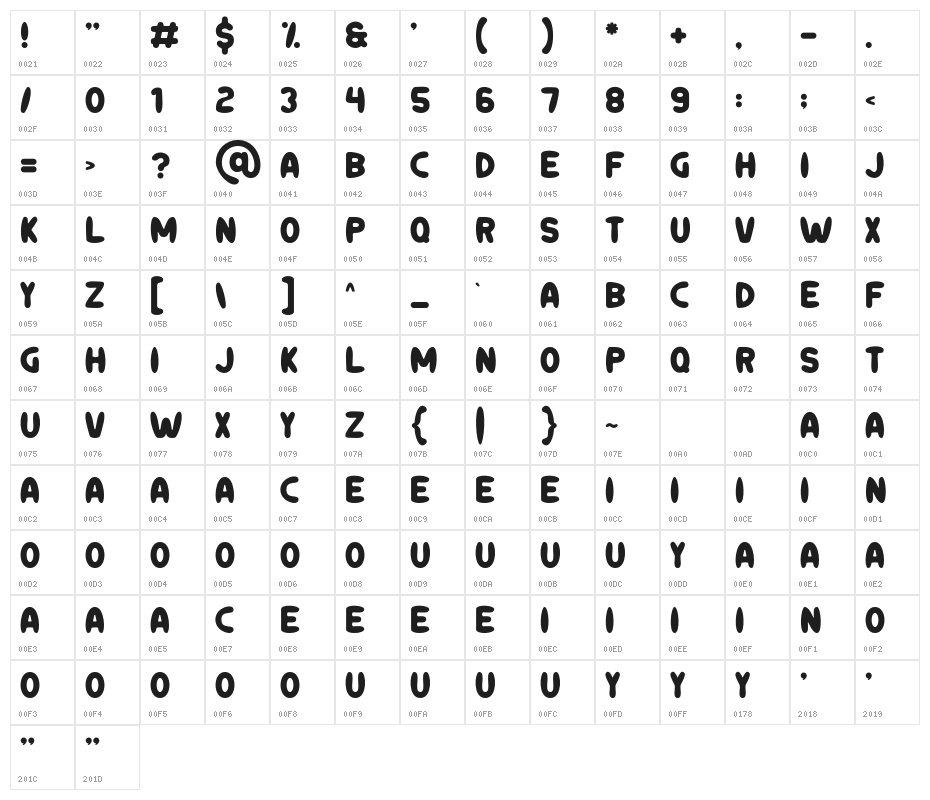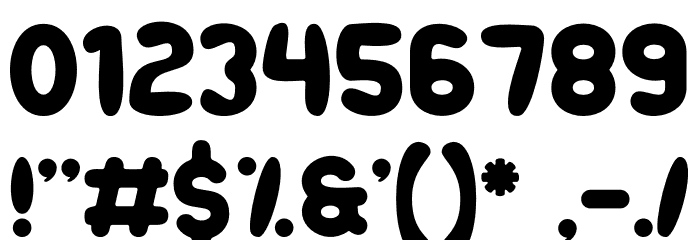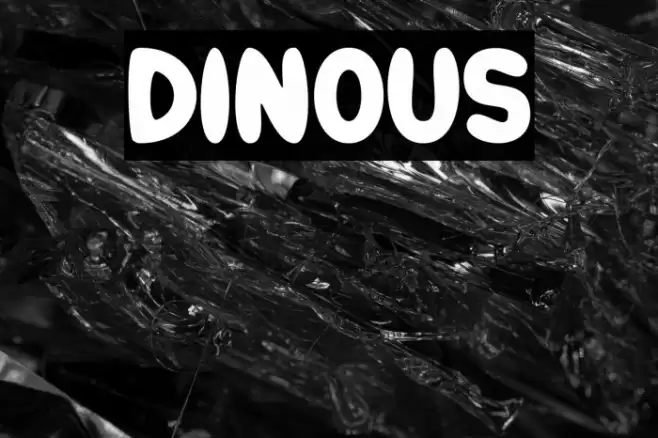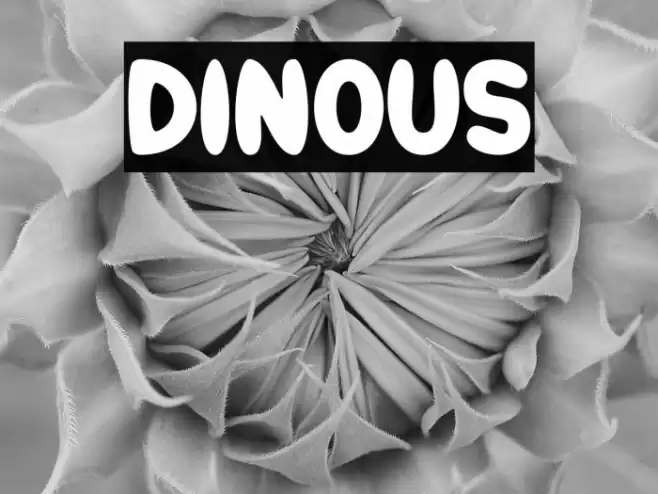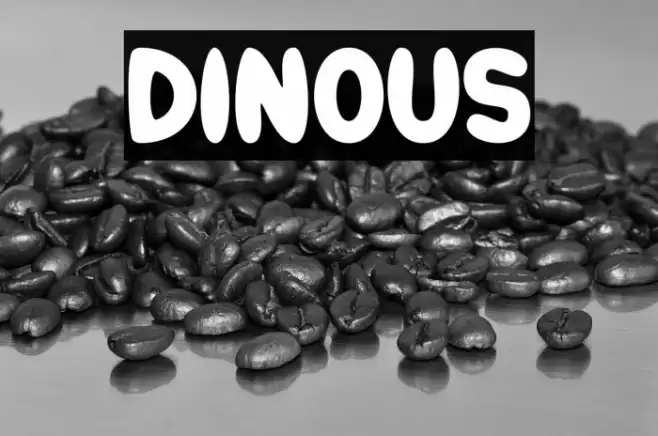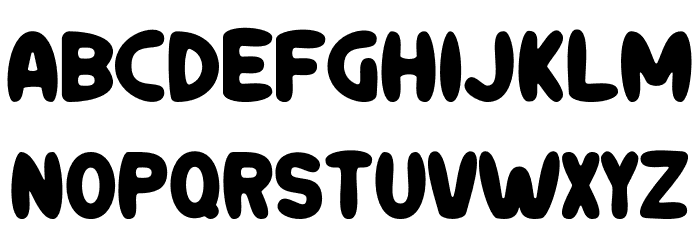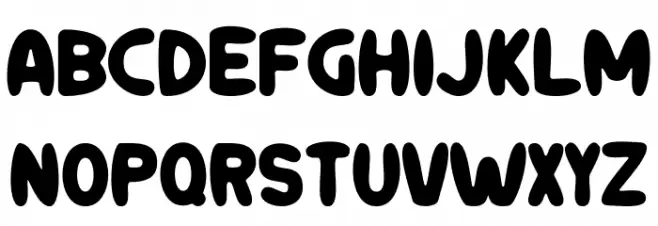
DINOUS Font
DINOUS Description
This playful and bold font features rounded, thick characters that convey a sense of fun and approachability. The letters are uniformly wide, with a consistent stroke thickness that gives the font a cohesive look. The rounded edges and lack of sharp angles make it feel friendly and inviting. The numbers and special characters maintain the same playful style, ensuring a harmonious appearance across all text elements. This font is ideal for projects that require a touch of whimsy and creativity, such as children's books, playful branding, or casual event invitations.
| Overall Style | Playful, Friendly |
| Proposed Projects | Children's books, playful branding, casual event invitations, posters, and merchandise. |